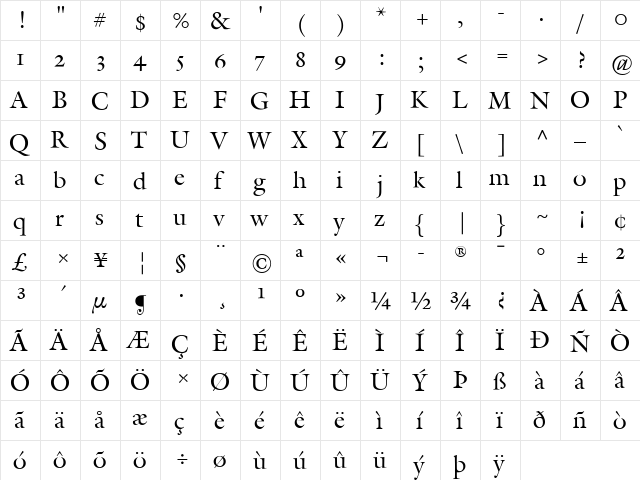
GalliardOStyCC Regular
Design Context for GalliardOStyCC Typeface
GalliardOStyCC takes a measured approach to typography — its balanced proportions and neutral character make it a reliable workhorse for both digital and print work.